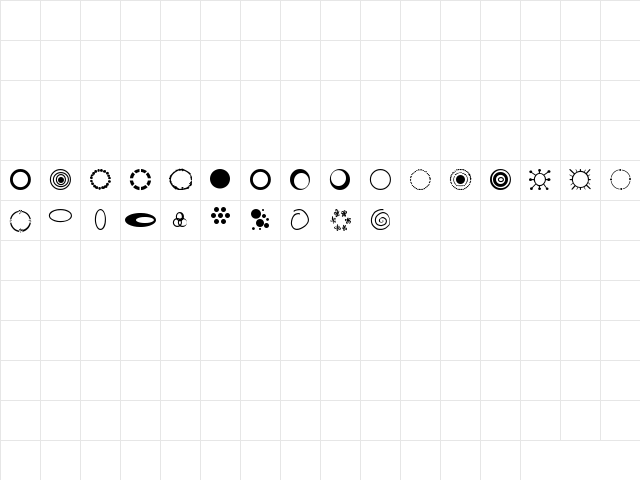
Complete SP Three Ring Circus Regular glyph index. Displaying only characters natively supported by SP Three Ring Circus Regular font.
SP Three Ring Circus is a composed and adaptable typeface that performs quietly and consistently across a wide range of design contexts.